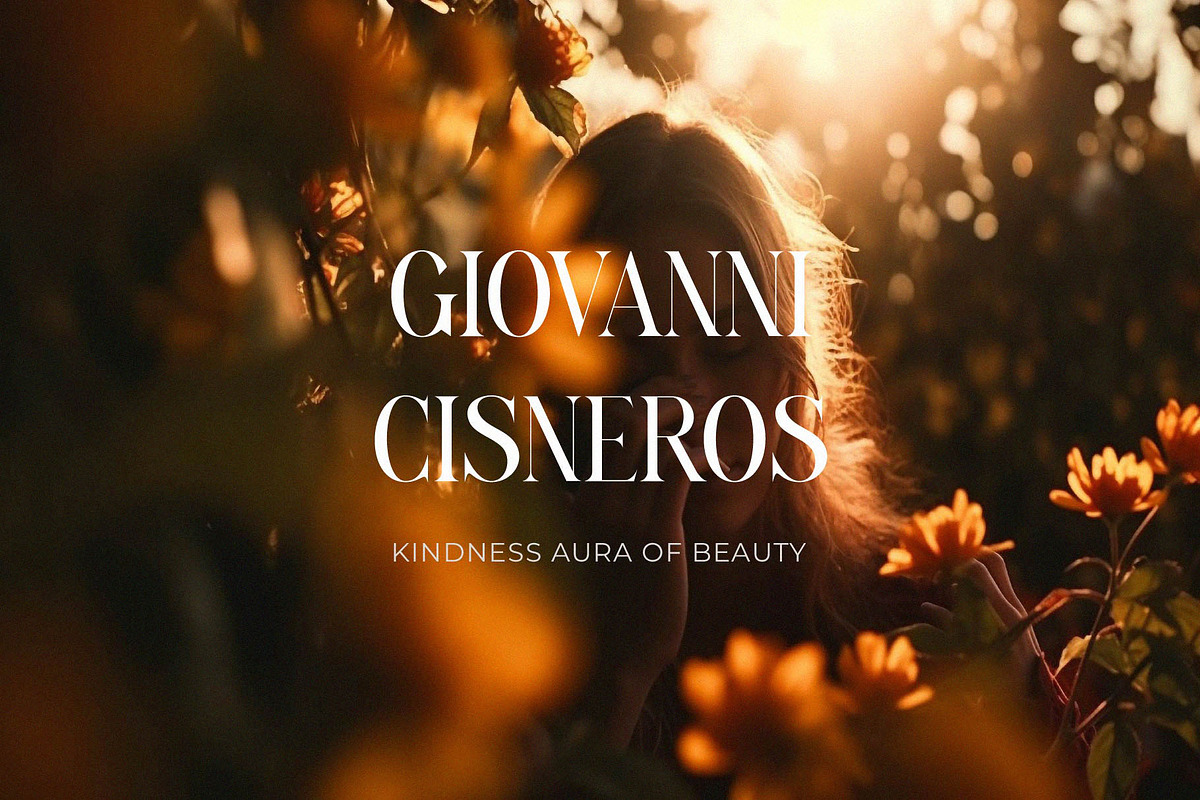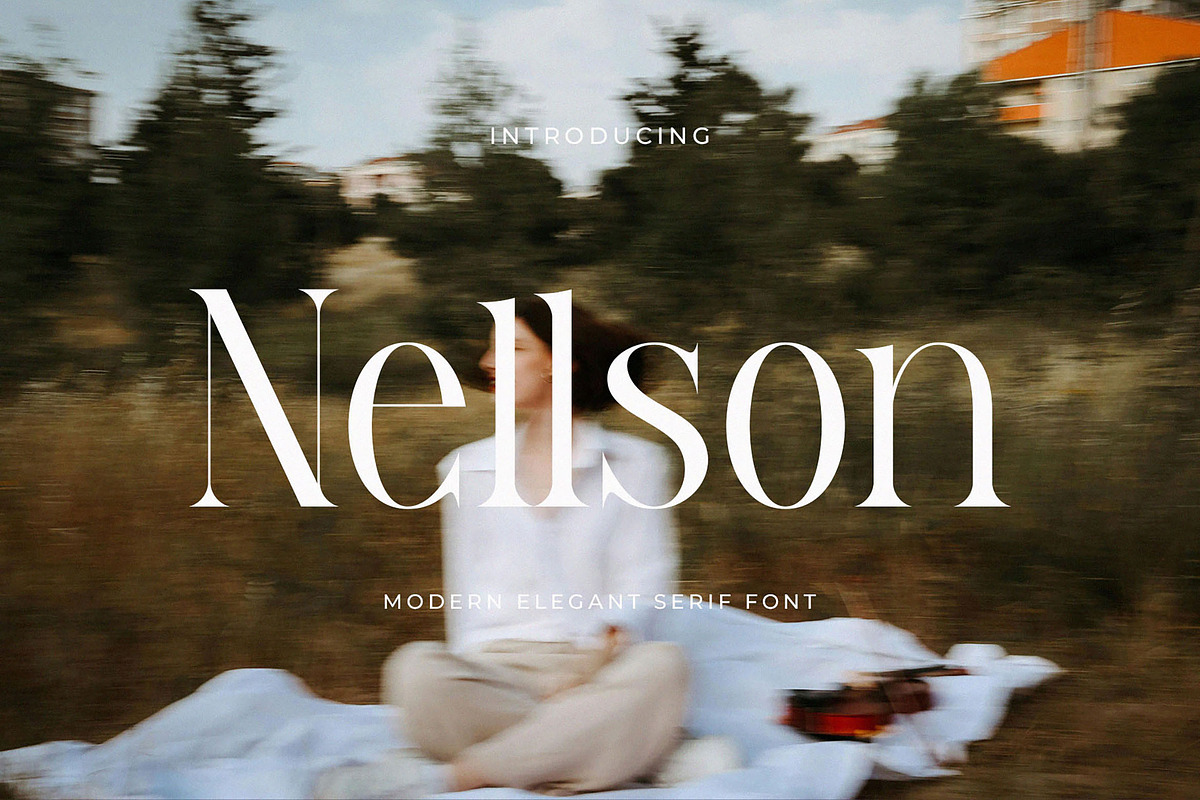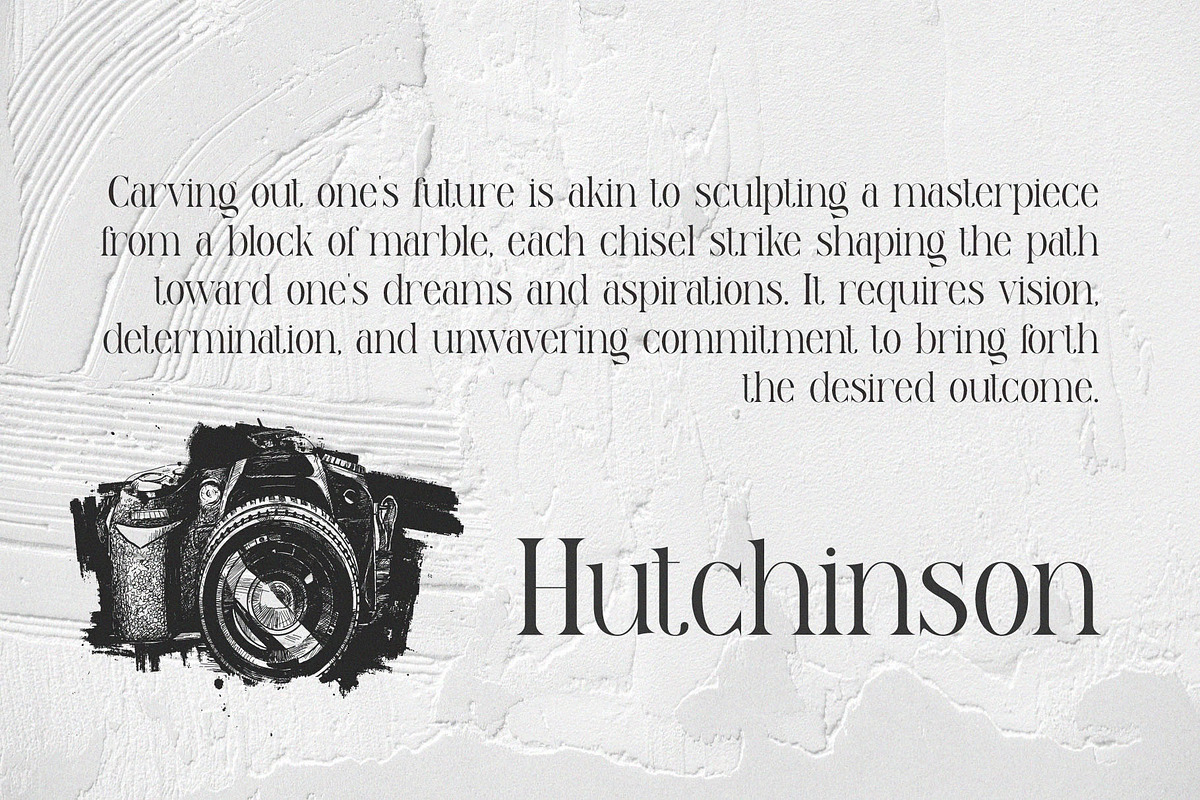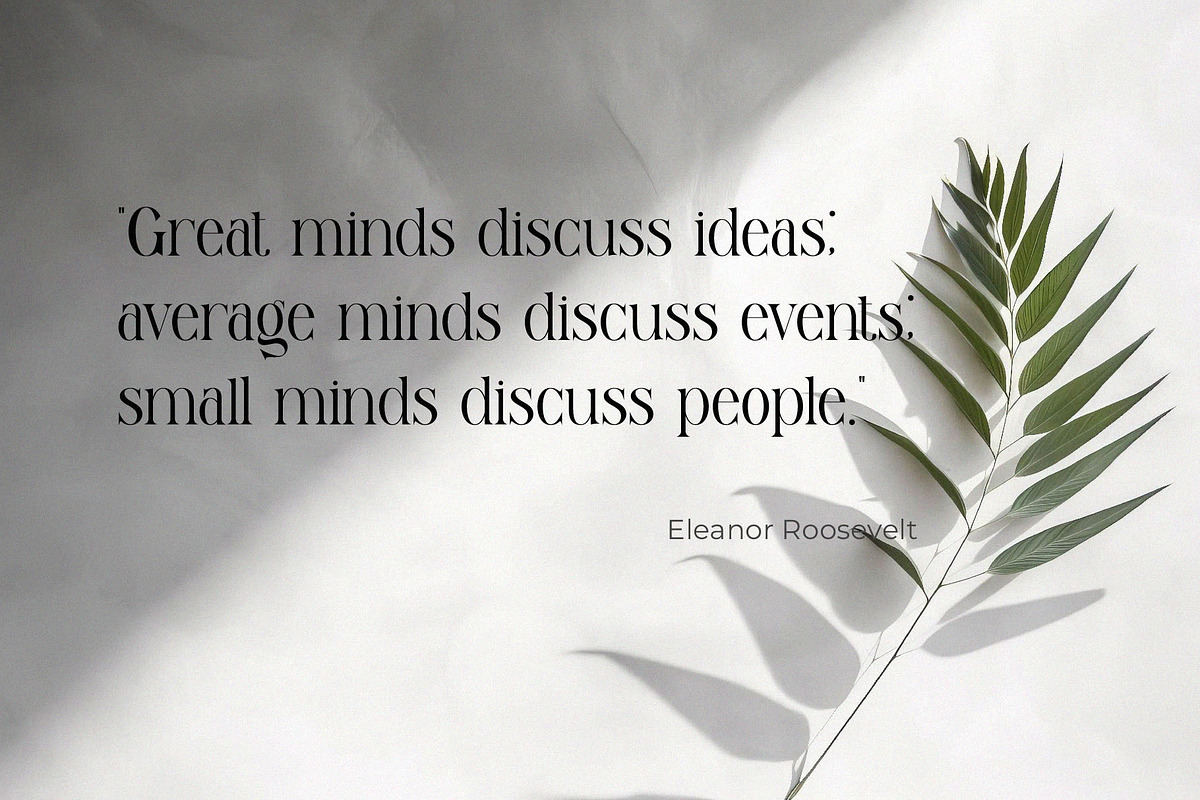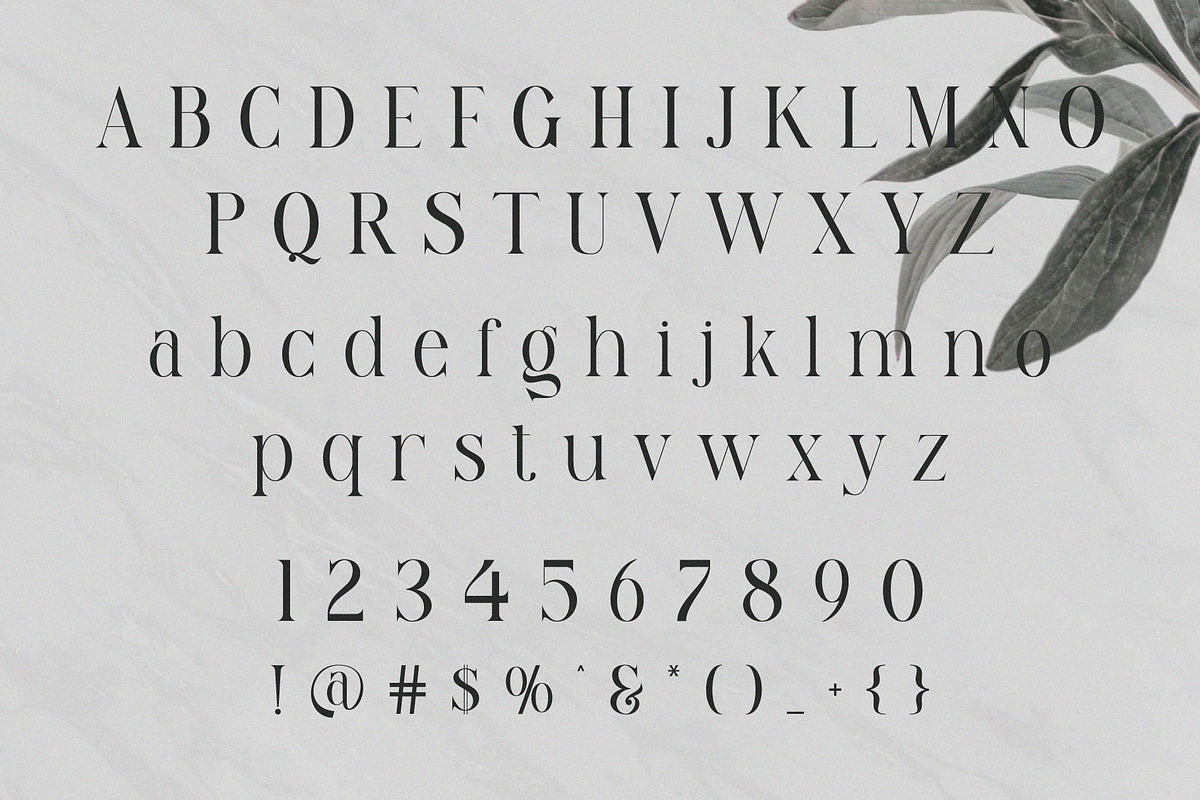
Nellson - Elegant Serif Font
Introducing Nellson - Elegant Serif Font. Nellson is a classy and stylish font, best used as a display for headings, logos, branding, magazines, product packaging and invitations. Thank you.